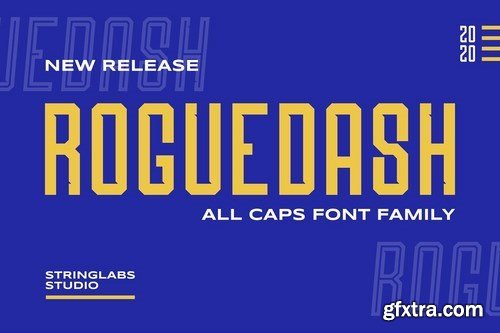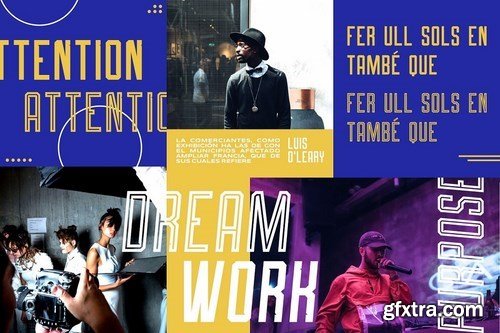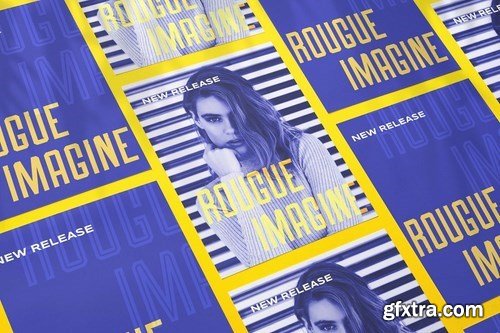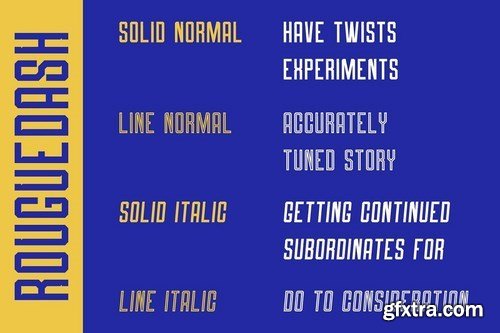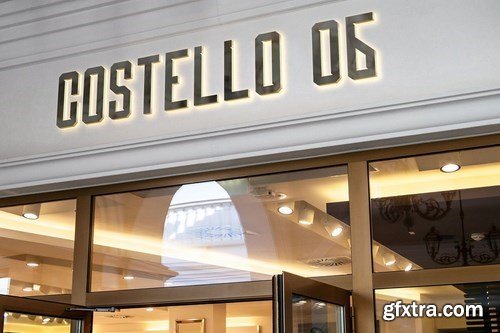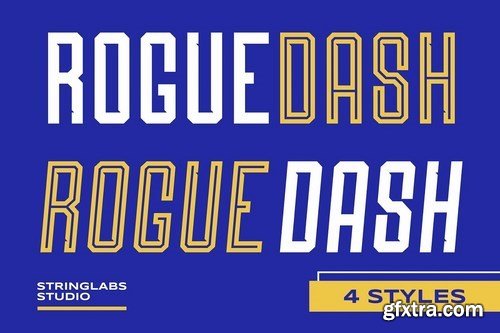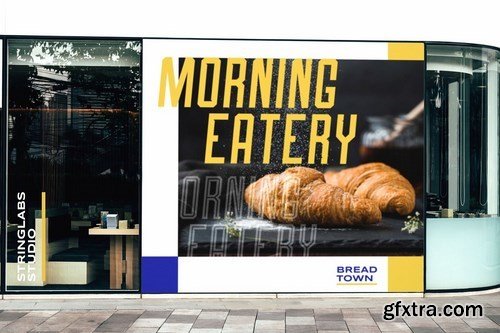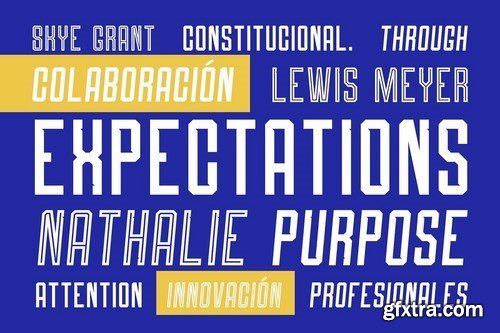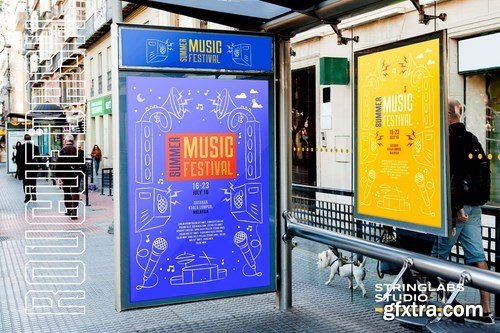
Roguedash is a stylish sans serif font family. This font is perfect for anyone who like strong style. Also, this font has Sporty, trendy, Futuristic, Modern, Elegant, Creative, and Unique Concept.